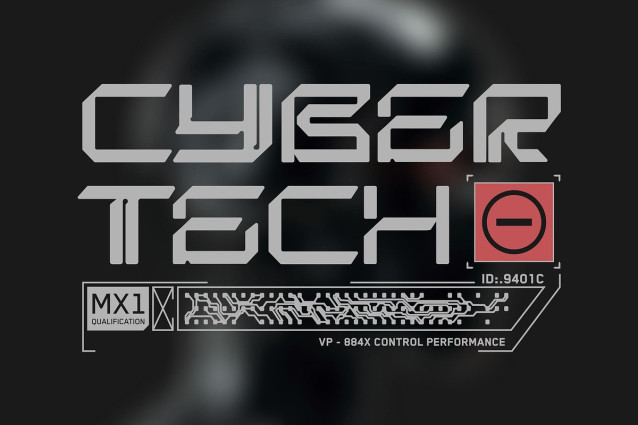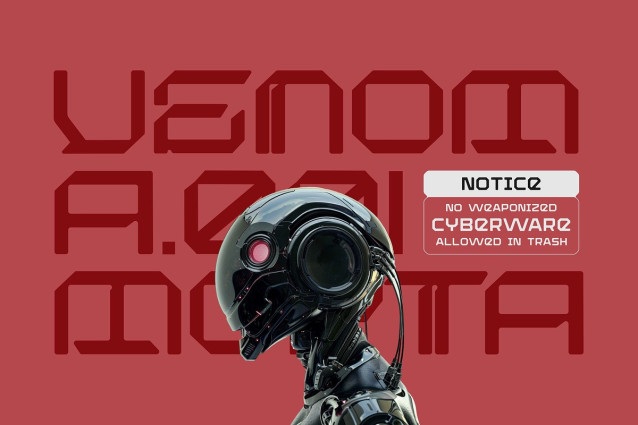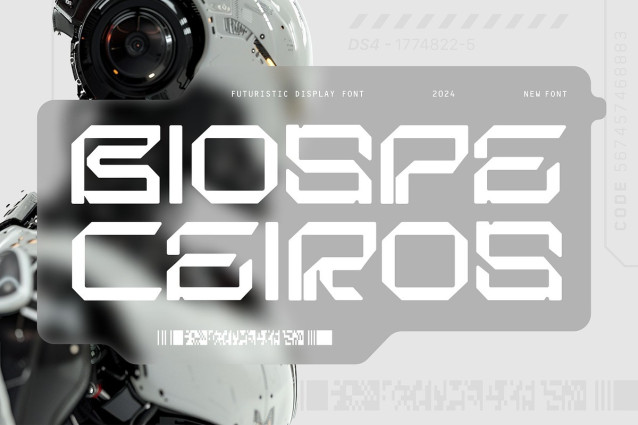
Biospe Ceiros Font
Biospe Ceiros Font is a futuristic and geometric display font. The characters are structured with bold, angular lines and shapes, giving it a high-tech, sci-fi aesthetic. The sharp edges and unique letterforms emphasize innovation and forward-thinking design.
The font includes unique cutouts and negative spaces within the letters, creating a sense of fragmentation and modernity. It well-suited for technological, futuristic, robotic, or dystopian themes, such as posters, branding, or game designs. This font excels in creating visual impact but is better suited for titles or headlines.